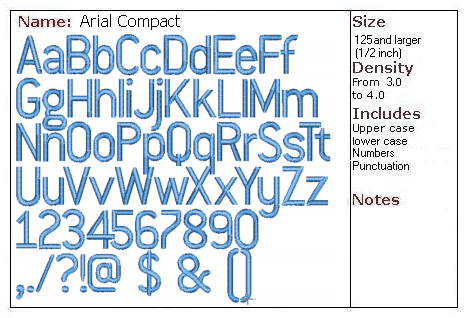
Arial Compact
Font Similar to Arial Rounded. Overall, about 25% more compact than Arial Rounded at the same size. This font can easily be stitched at 2 inches in height maintaining Satin Stitch type